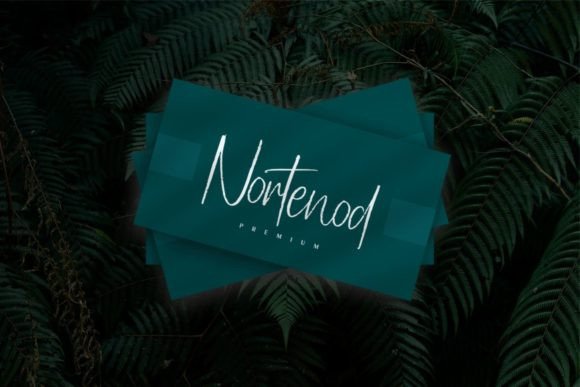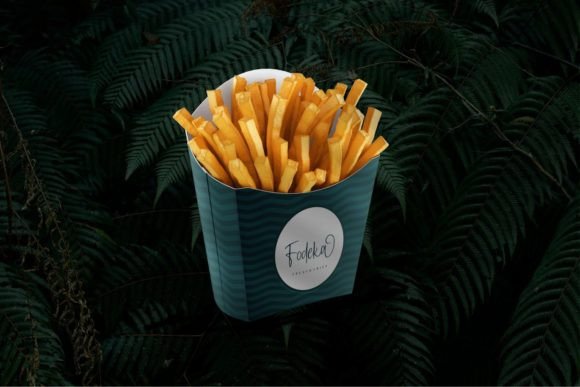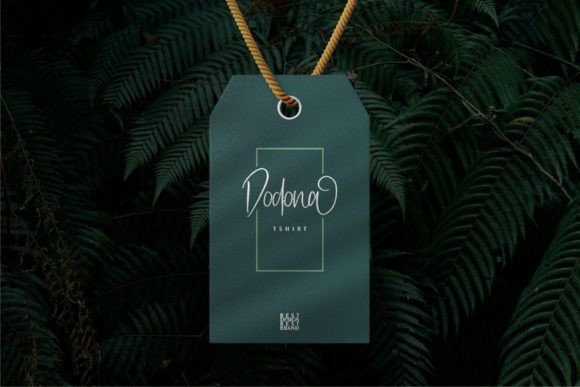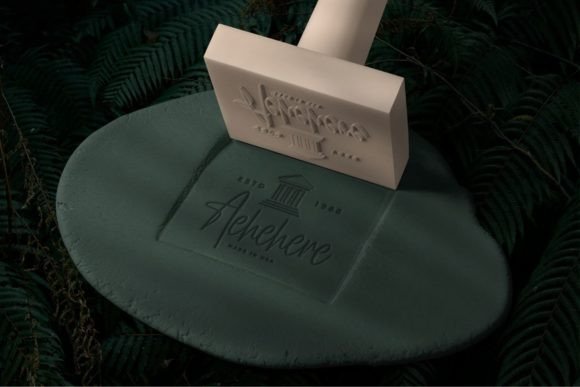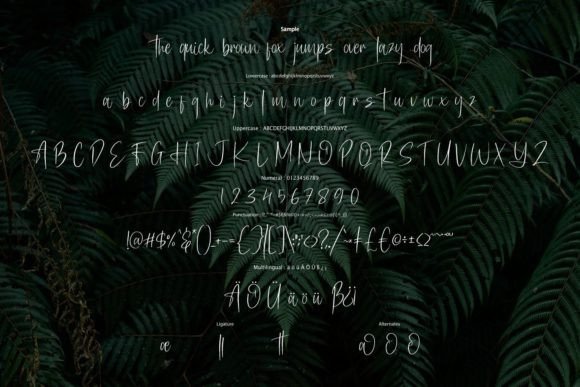
There’s nothing quite like the feeling of bringing an idea to life, with every brushstroke, every keystroke, and every decision guiding you closer to your vision. For designers, this moment is what makes all the hard work worth it – the moment when everything comes together, and you step back to admire your creation. And what’s a key element in making this moment shine? A font that speaks to the soul of your project.
Enter the Ballostna Font, a stunning script font designed to elevate any creation. With its intricate details and elegant flair, this font is a valuable addition to any designer’s library. Whether you’re crafting a wedding invitation, a logo, or a book cover, the Ballostna Font has the potential to make your project truly unforgettable. And with its PUA encoding, accessing all the glyphs and swashes is a breeze, giving you the freedom to experiment and push the boundaries of your creativity.
Balostna Font Key Features
- Unique Characteristics: The font features a unique, hand-drawn aesthetic with subtle irregularities and imperfections, giving it a distinctive, human touch.
- Font Width: The font has a medium to wide width, making it suitable for use in headings, titles, and other display typography.
Ballostna Font Review
When I first laid eyes on Ballostna Font, I was immediately drawn to its unique, playful aesthetic ✨. The font’s rounded edges and organic feel make it perfect for adding a touch of whimsy to any design project. The bold and regular weights offer a nice balance, allowing users to create visually appealing combinations.
- The font’s versatility is a major selling point, making it suitable for a wide range of applications, from children’s books to advertising campaigns.
- Ballostna Font’s OpenType features and extended character set are a bonus, providing designers with endless possibilities for creative expression ✨.
- The font’s scalable design ensures it looks great in both print and digital formats.
However, there are some limitations to consider ⚠️. The font’s complexity may make it challenging to use for novice designers, and the lack of a light weight may limit its suitability for certain applications.
Overall, I’m impressed by Ballostna Font’s unique character and versatility. While it may not be the perfect choice for every project, it’s definitely a great option for designers looking to add a touch of personality to their work.
The Ballostna Font is ideal for:
1. Creating elegant and sophisticated designs.
2. Adding a touch of luxury and sophistication to your branding materials.
3. Designing invitations, menus, and other special occasion materials.
Tips for Getting the Most Out of Ballostna Font
To get the most out of the Ballostna Font, use it in combination with other elegant fonts and design elements, such as cursive scripts and floral patterns.
Experiment with different font sizes, colors, and styles to create a unique and eye-catching design.
Alternatives to Ballostna Font
Compared to Ballostna Font, Playfair Display is more ornate and luxurious, while Ballostna Font has a more modern and minimalist feel.
Compared to Ballostna Font, Merriweather is more traditional and formal, while Ballostna Font is more modern and versatile.